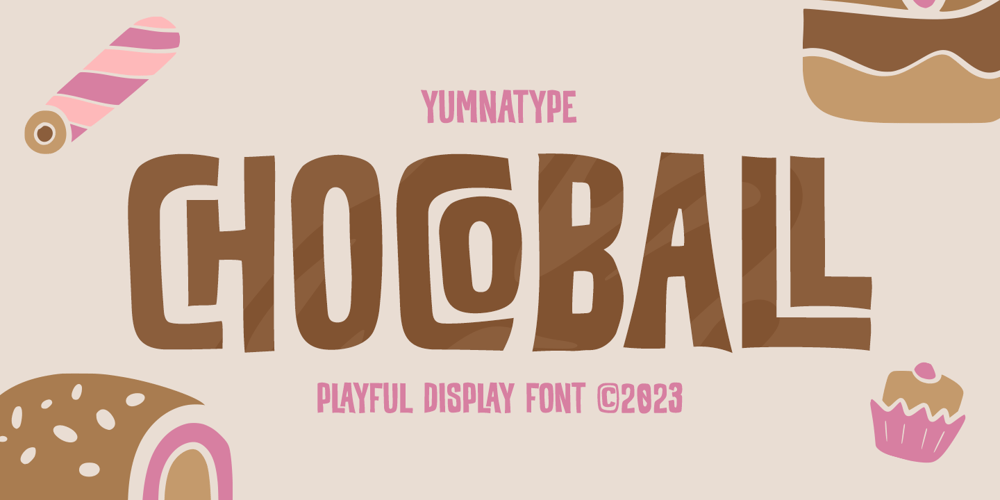
Chocoball Font Family was designed by Donis Miftahudin and published by Yumna Type. Chocoball contains 1 styles and family package options. It is significant to have a unique font to create impressive, impactful designs because people often forget common things which may cause your work to be forgotten as well. You may have lost your candidate customers even before they know your brand and product. Let us introduce you to Chocoball, a font with firm impressions to protrude your designs.Chocoball is an uppercased display font designed in playful, modern concepts. It has firm, attractive impressions because of the inclined square letter shapes making it more unique than the others. Furthermore, it can show off your desired messages on your designs easily with the use of the uppercases. Besides, this font is able to build up a strong, recognizable brand identity. A playful display font is flexible and suitable for various design types as its advantage because it is applicable for either formal or informal designs producing interesting, consistent results. You can apply Chocoball, which gives you a clipart as a bonus, for big text sizes to be legible. You can enjoy the available features here as well.Features: Ligatures Multilingual Supports PUA Encoded Numerals and Punctuations Chocoball fits best for various design projects, such as brandings, posters, banners, headings, magazine covers, quotes, printed products, merchandise, social media, etc. Find out more ways to use this font by taking a look at the font preview.Thanks for purchasing our fonts. Hopefully, you have a great time using our font. Feel free to contact us anytime for further information or when you have trouble with the font. Thanks a lot and happy designing.